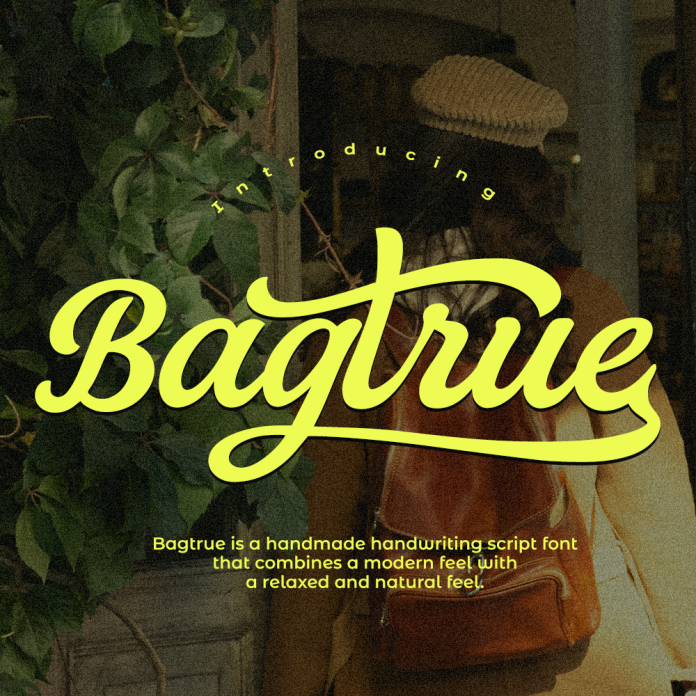
Bagtrue font is a sophisticated and elegant premium script font. Its flowing and modern style makes it perfect for luxury branding, wedding invitations, and other high-end design projects. With its unique curves and swashes, Bagtrue font adds a touch of class to any design.